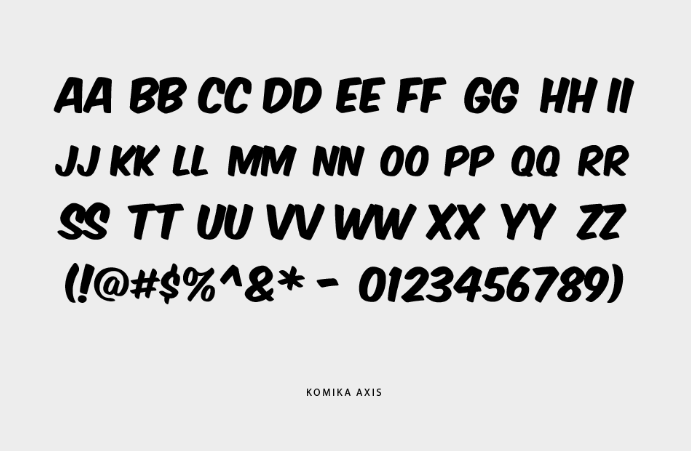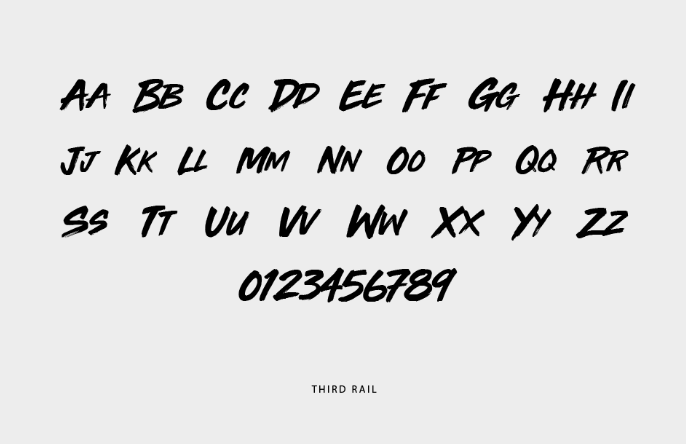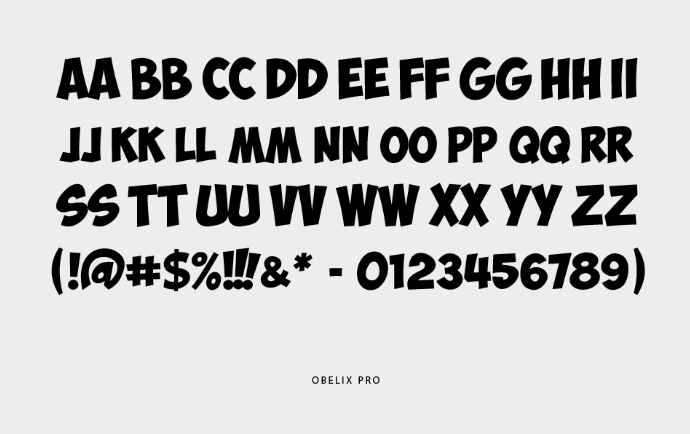
Mr. Beast’s font is integral to developing his identifiable brand persona, which works synergistically with his creative content, charitable causes, and Guinness World Record-breaking YouTube videos that continue to entertain and inspire millions globally.
What is the Mr. Beast Font?
In this context, people like Mr. Beast, with his YouTube channel, where he performs stunts and gives people money, have become easily identifiable brands. One principal aspect can be directly attributed to his aesthetic, namely the consistent use of three particular fonts. Let’s consider each typeface in detail to understand what makes them so unique.
Mr. Beast Subtitle Font
Mr. Beast relies on Komika Axis, a cartoon-style font designed by Vigilante Typeface Corporation, for subtitles and captions. This fun, rounded font adds a friendly touch to his text and is available for unrestricted commercial use. Download it now and give your projects a playful boost!
Mr. Beast Thumbnail Font
Mr. Beast’s thumbnails are hard to miss, thanks to the captivating Obelix Pro font created by Valentin Antonov. This comic book-style design features bold, energetic letterforms that grab attention and contribute to the overall visual appeal of his content. Get Obelix Pro for free for personal use and elevate your thumbnails!
Mr. Beast Logo Font
The Mr. Beast logo features a custom-modified version of Third Rail, a brush typeface from BLKBK Fonts, inspired by urban graffiti culture. This unique font adds an edgy, authentic feel to the logo, perfectly reflecting Mr Beast’s bold personality.
Applications for the Mr. Beast Font
The Mr Beast font (and its alternatives) finds application in diverse areas due to its bold and modern appeal. Below are its key applications:
- Content Creation and Thumbnails
As a YouTube personality, MrBeast’s thumbnails are his primary marketing tools. The boldness of the font ensures it grabs attention even in smaller preview sizes, helping his videos stand out in crowded feeds.
- Merchandise Design
The font is often used in the design of Mr. Beast’s merchandise, including clothing, hats, and accessories. Its striking look complements streetwear-inspired aesthetics, making it appealing to a younger demographic.
- Logo Design
The Mr. Beast font, or similar typefaces, is popular among designers creating logos for gaming channels, entertainment brands, and personal creators who seek a bold and approachable identity.
- Social Media Branding
Its clean and bold features make it perfect for social media banners, profile pictures, and promotional posts.
- Event Posters and Campaigns
Whether for digital events or charitable campaigns, the font’s adaptability allows it to be used in high-impact, visually engaging posters.
Alternatives to the Mr.Beast Font
While the original font is customized for Mr. Beast’s branding, several alternatives capture a similar vibe. Here are a few options:
- Luckiest-guy:
A bold, sans-serif typeface with a playful and approachable aesthetic. Perfect for headlines, branding, and casual designs. - Impact:
A classic and widely available font that offers the boldness and visibility needed for eye-catching designs. - Bebas-Neue:
A clean and modern font with geometric proportions. Its bold weights make it ideal for branding projects, such as those of Mr. Beast. - Anton:
A sans-serif font with condensed letterforms, offering a sleek and contemporary look for digital media. - Oswald:
A reimagining of the classic gothic typeface, Oswald pairs well with bold and dynamic designs.
How to Incorporate Mr. Beast Font Into Your Projects
If you’re a graphic designer or content creator inspired by Mr. Beast’s typography, here are a few tips for effective use:
- Prioritize Visibility: Use the font in contexts where visibility and impact are essential, such as logos, titles, and thumbnails.
- Pair with Bright Colors: Combine the font with vibrant colors or gradients for an energetic and engaging aesthetic.
- Experiment with Sizes: The font’s boldness allows it to work well in large displays but can also be resized for subtle branding touches.
- Adapt for Your Audience: While the font is playful, you can adjust its styling to suit your brand’s specific tone and audience.
Conclusion
The Mr. Beast font encapsulates the essence of modern branding: adventurous, conspicuous, and highly memorable. Its geometric pattern and dynamic sensation have put this design in the spotlight for the needs of Mr. Beast’s empire and everyone wanting this feeling in their design. If you create website content, t-shirts, a logo, and promotional items, this typeface, or its variations, has many uses.
For designers, the font is not merely a utility but a call for freedom and an appeal to be less conservative digitally. Thus, if branding inspires you, you can develop designs that will attract the target audience’s attention and remain memorable, as in Mr. Beast’s case.